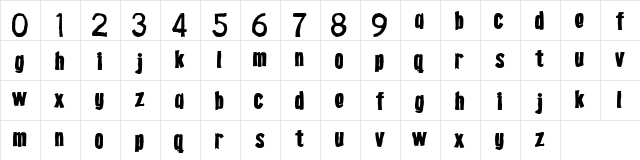
Gasoline Regular
Design Context for Gasoline Typeface
Gasoline is a composed and adaptable typeface that performs quietly and consistently across a wide range of design contexts.